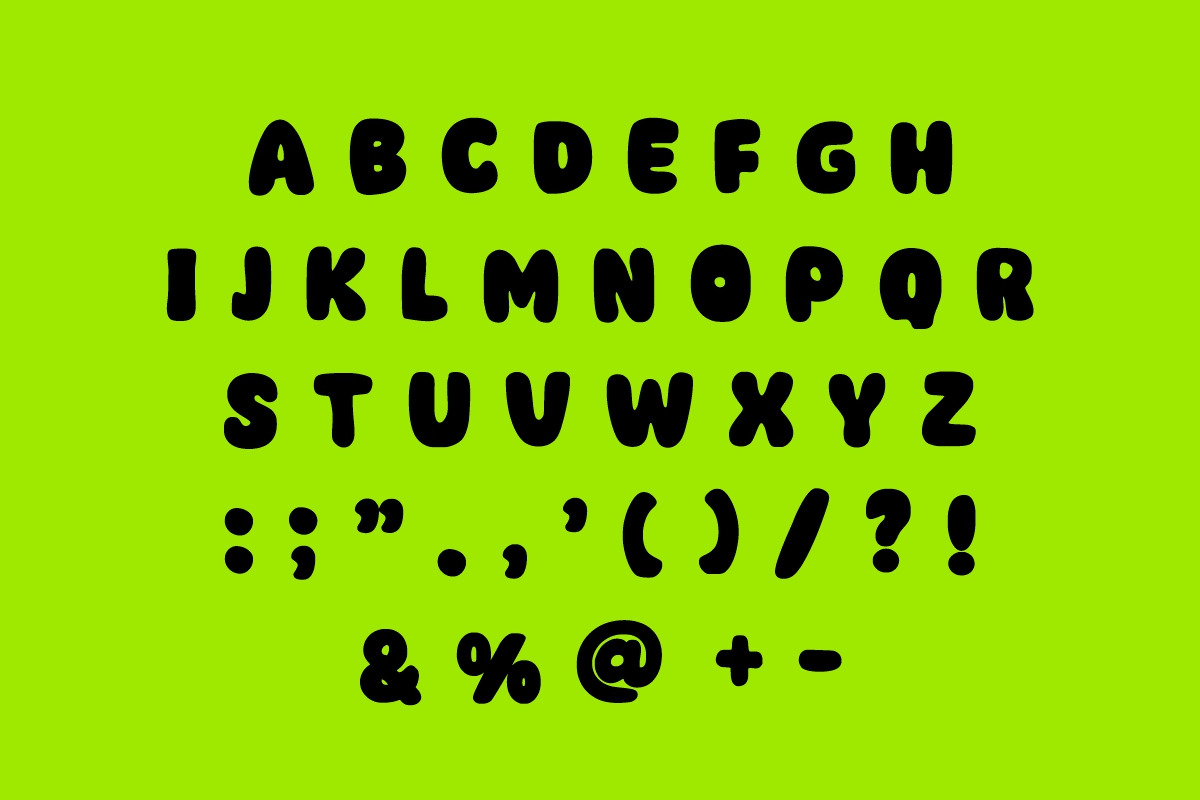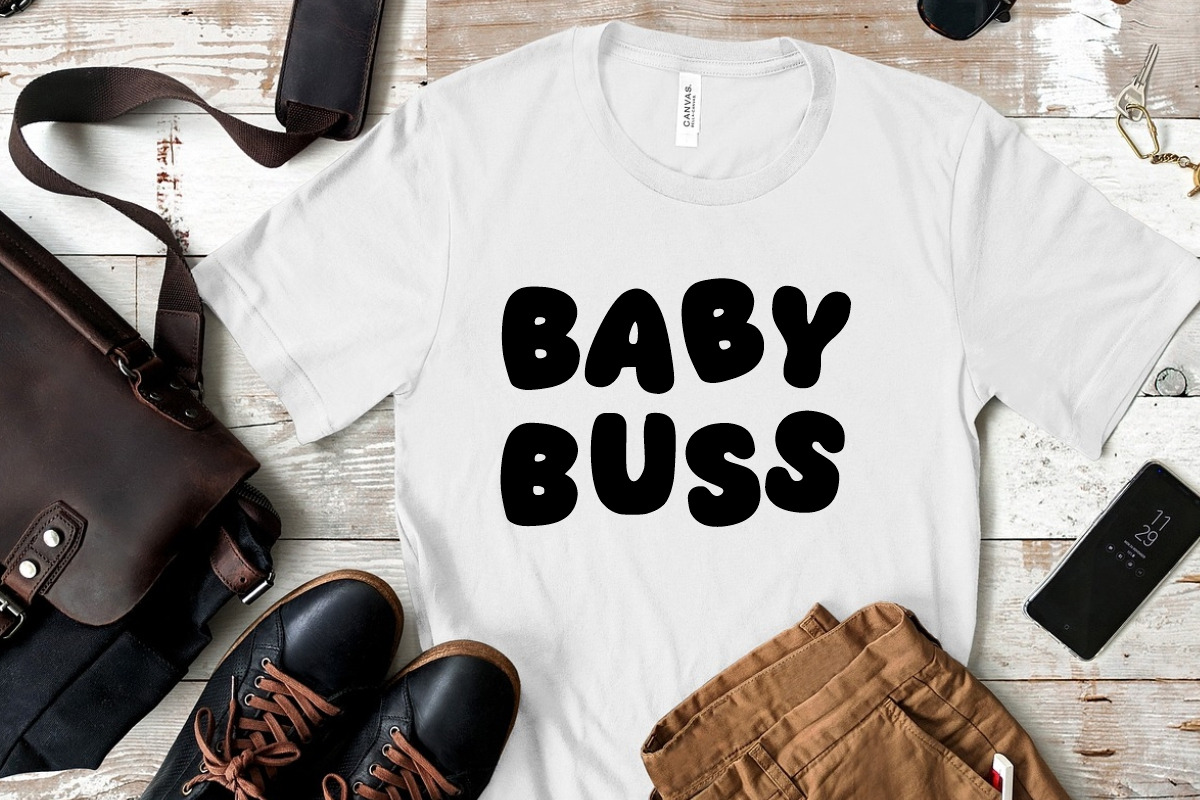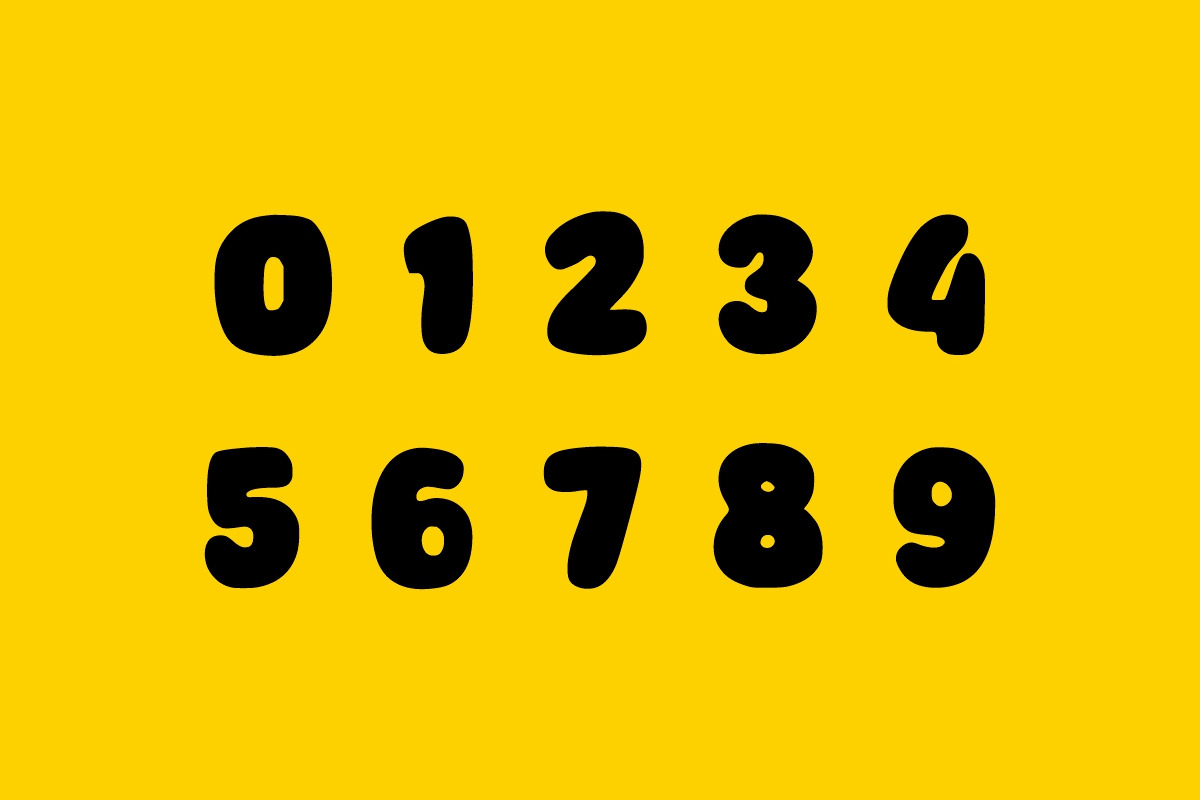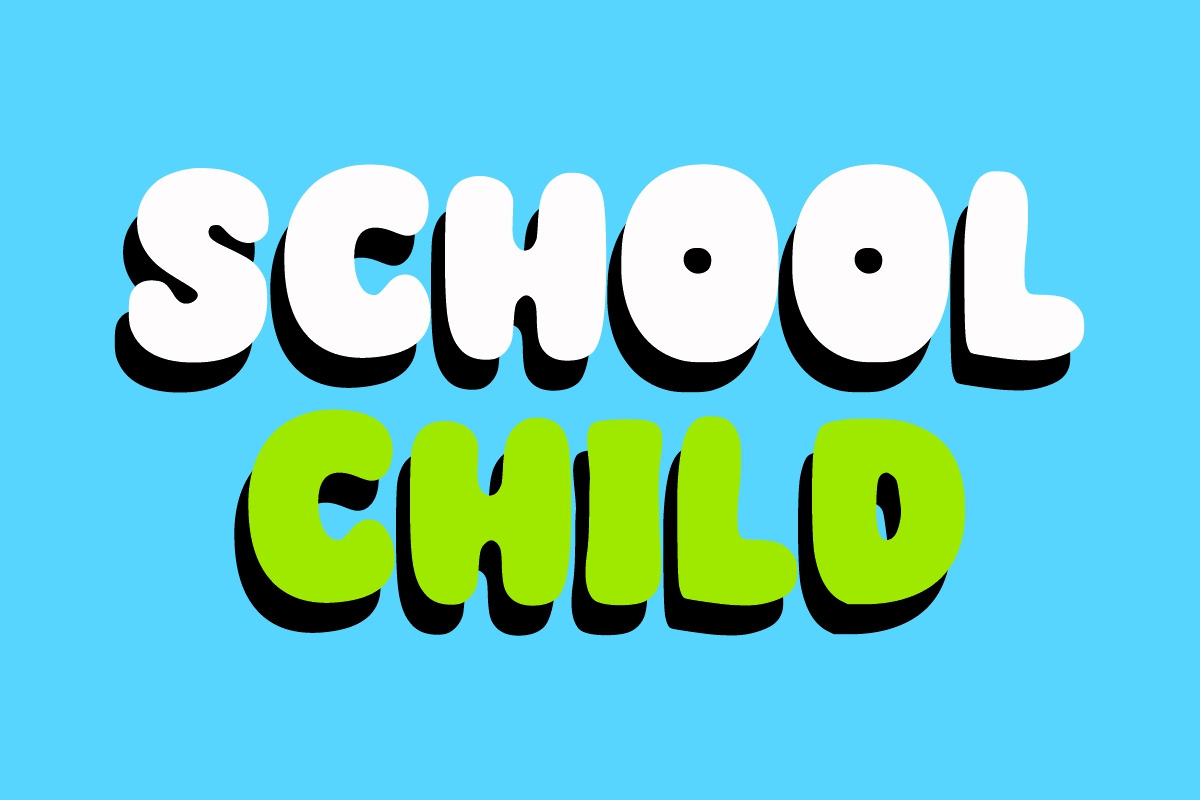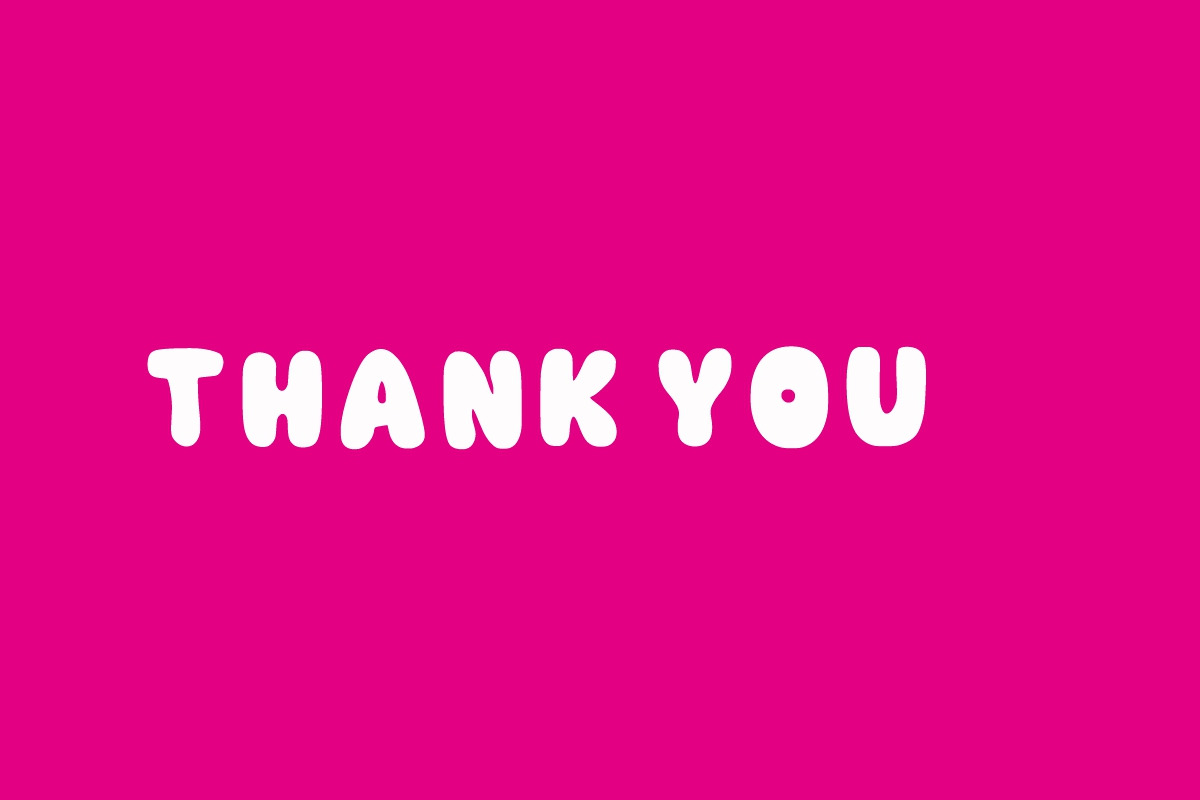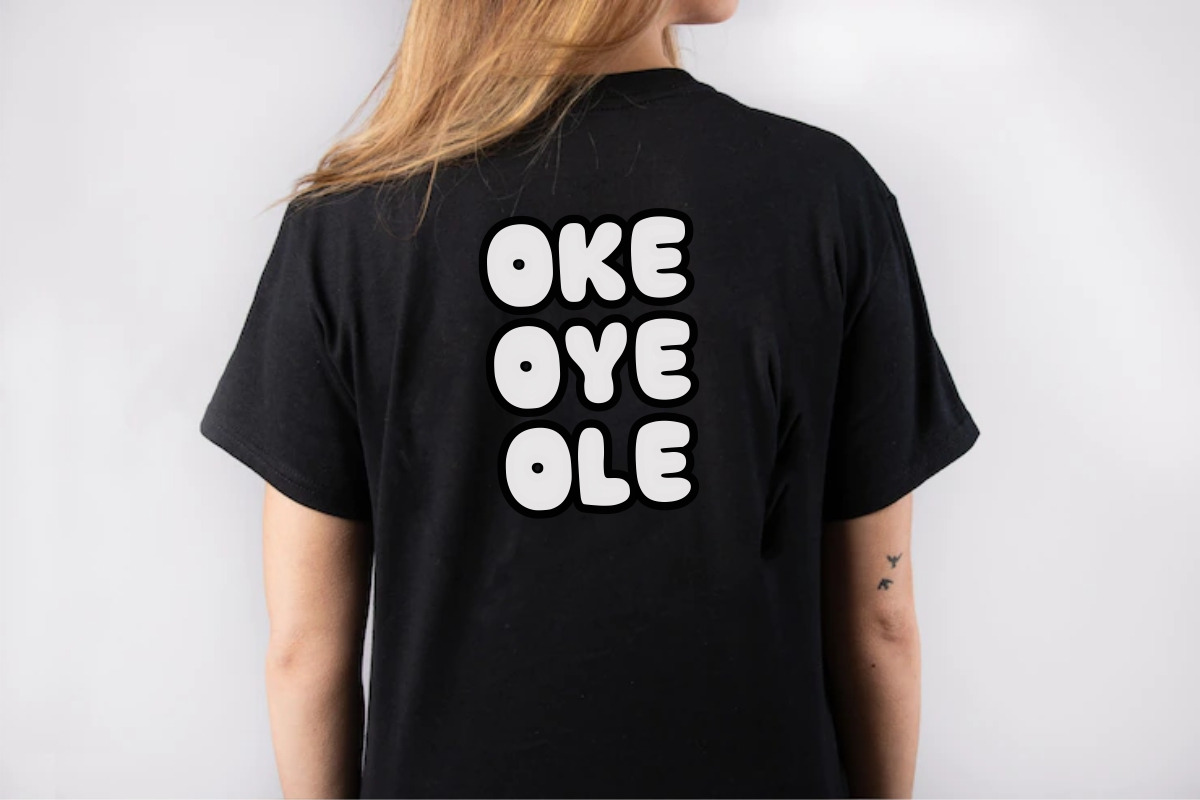
Kid Bomba
KID BOMBA is a Fun and bold display font. It features a dynamic effect and a unique charm. It is perfect for headlines, sporting events, automotive posters, school posters, text effects, templates, logos, or monogrammed designs.